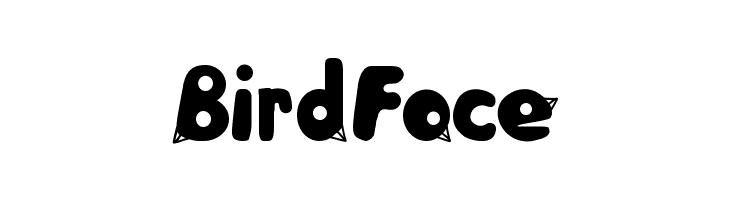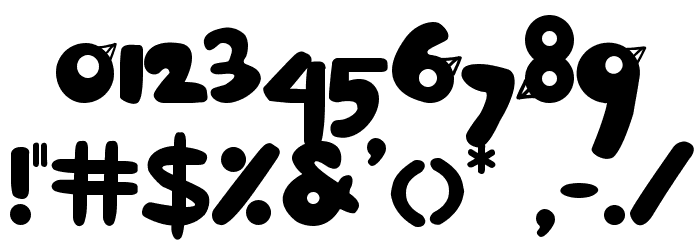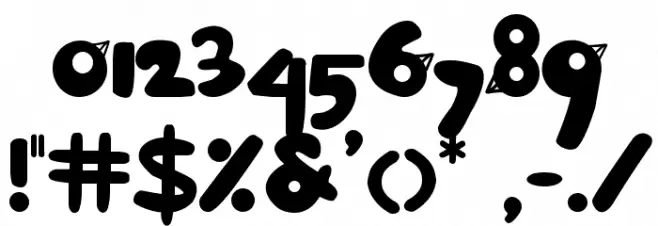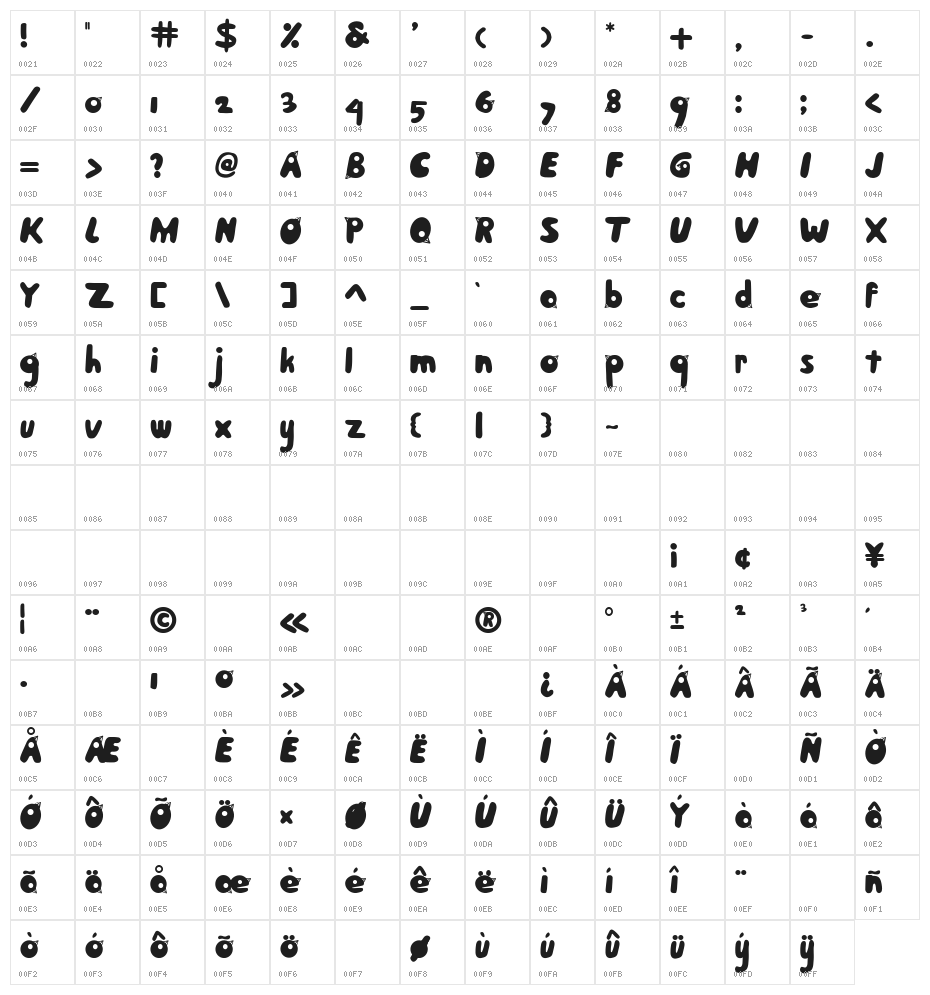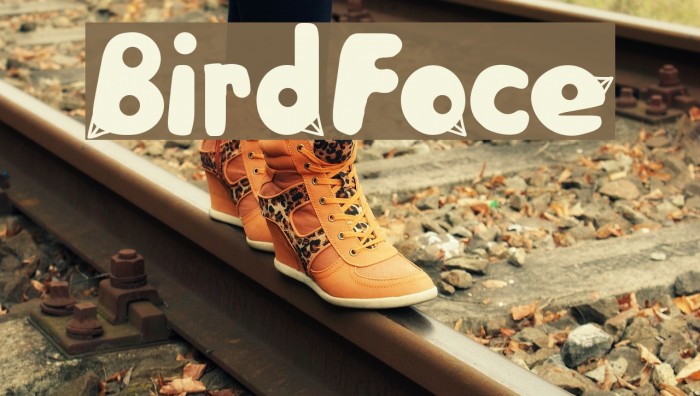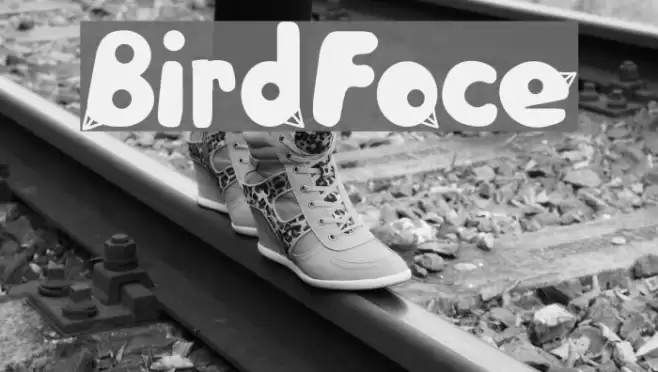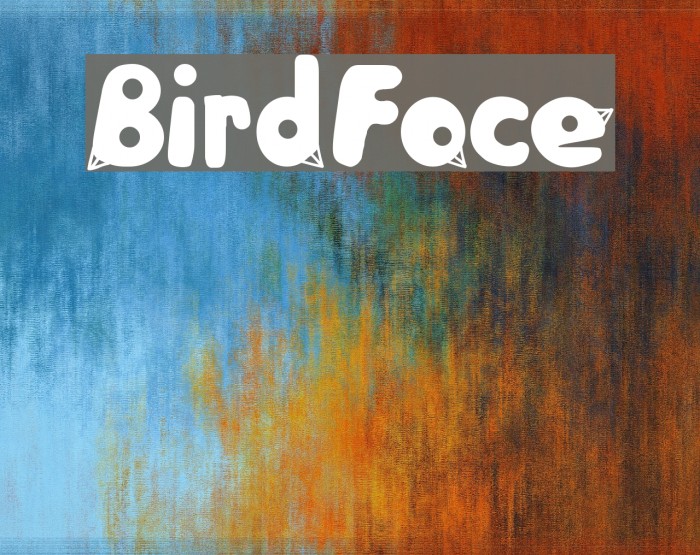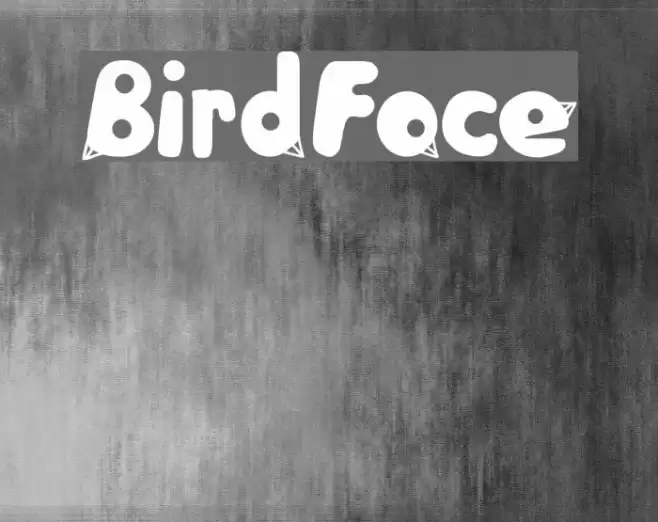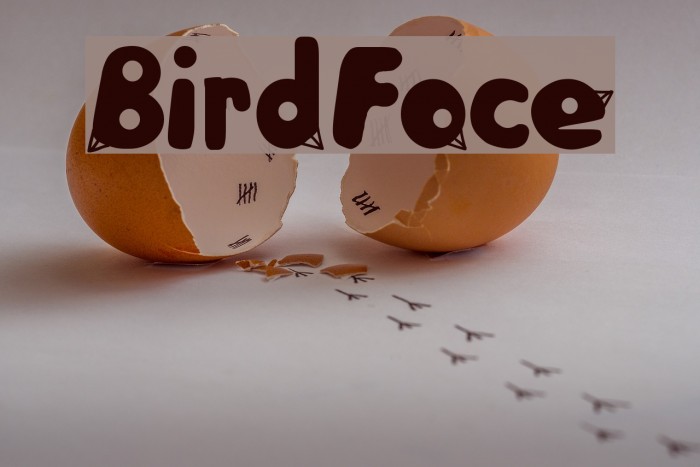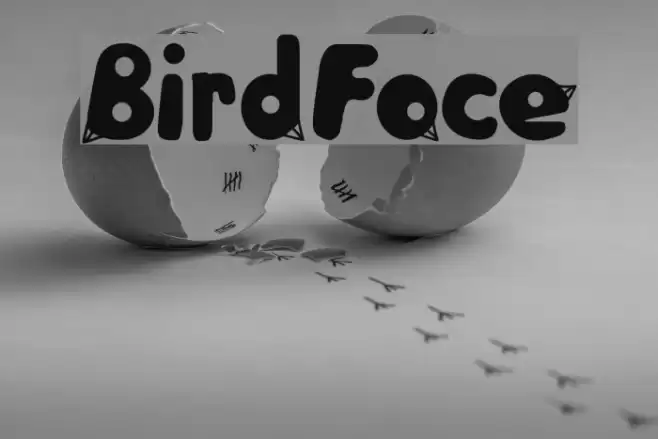
BirdFace Font
BirdFace Description
This playful and whimsical font features bold, rounded characters with a unique design element resembling a bird's face incorporated into some of the letters. The strokes are thick and consistent, giving the font a strong presence. The characters are slightly irregular, adding a hand-drawn feel that enhances its charm. The font is highly decorative, making it ideal for creative projects that require a fun and engaging look. It includes a full set of uppercase and lowercase letters, numbers, and a variety of special characters, all maintaining the same playful style.